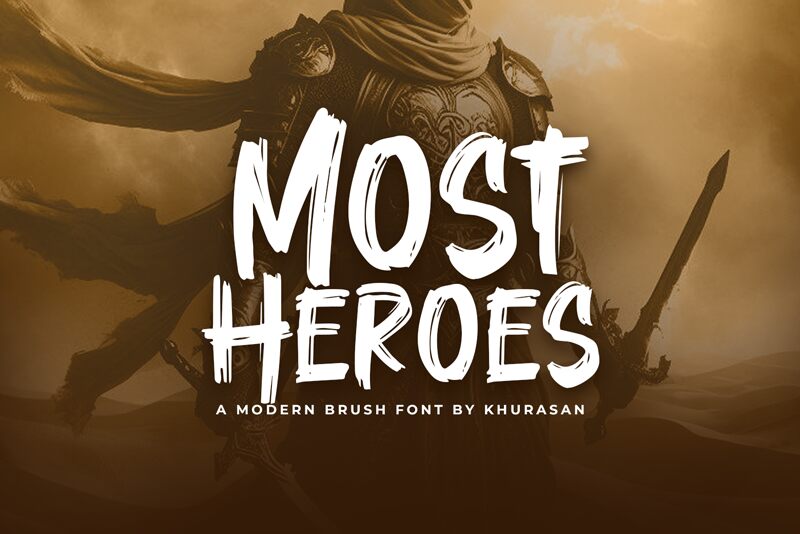
Most Heroes
Most Heroes is a captivating brush font crafted by Khurasan. With its bold, expressive strokes and a touch of grit, this font exudes a powerful, heroic aesthetic. The striking letterforms possess a dynamic, handcrafted quality, conveying a sense of energy and individuality. The font's versatility shines through its ability to seamlessly transition from bold headlines to impactful body text, making it a versatile choice for a wide range of design applications.
This font's unique character and emotive quality make it an ideal selection for projects seeking to evoke a sense of strength, adventure, or a heroic narrative. From editorial design and book covers to branding and packaging, Most Heroes' distinctive style can elevate the visual impact of any design, captivating audiences and leaving a lasting impression.